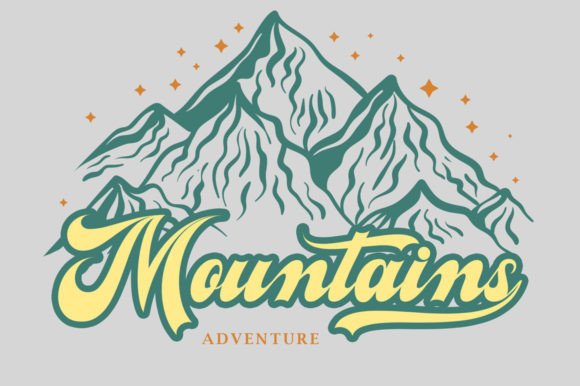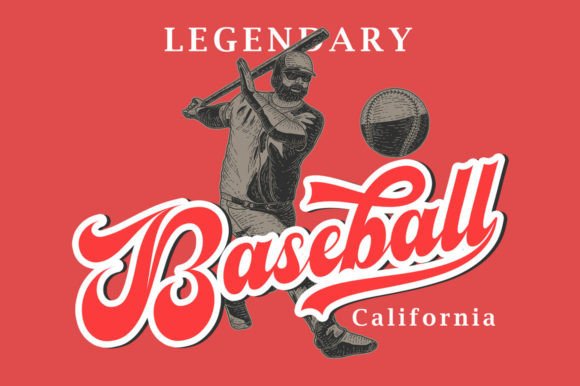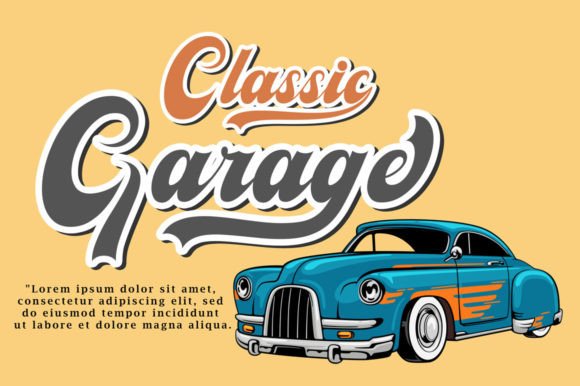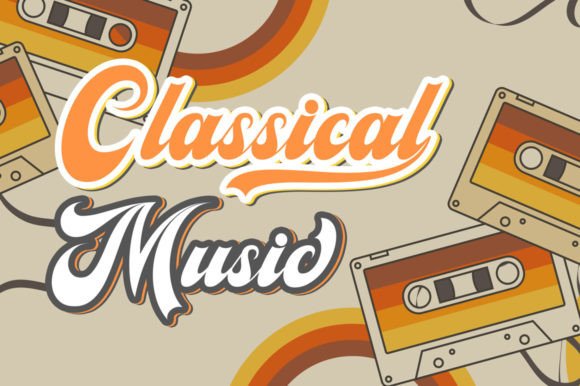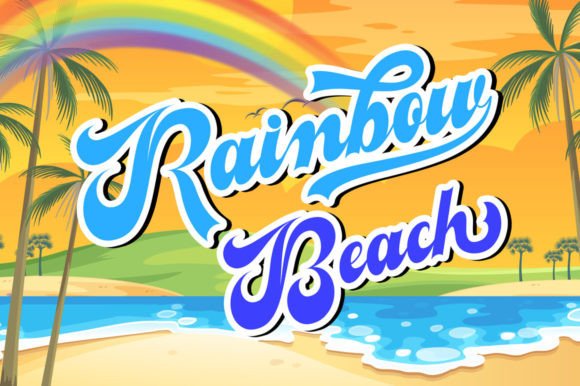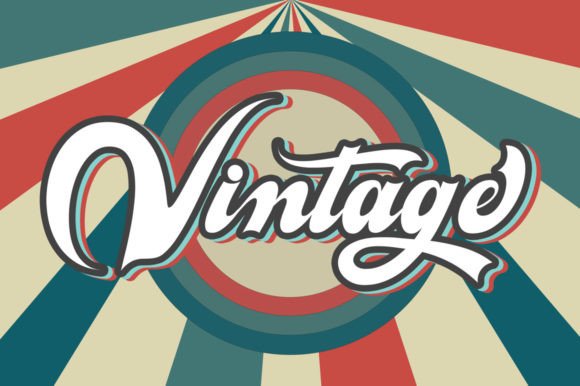
Introduction to Martines Font Font
Fonts play a crucial role in design, and the Martines Font font is a typeface that brings both character and versatility to any project. Whether you’re working on a branding project, a website, or a print design, the Martines Font font offers a unique style that can elevate your work.
Martines is a fun vintage script font that brings a cool, 80s feel to your designs.
With funky curves and a retro feel, this font is perfect for creating fun and playful designs that evoke a sense of nostalgia and make your audience smile Keep in mind that the font is PUA encoded, meaning you can easily access all the fun glyphs and swashes.
Key Features of Martines Font Font
Why Choose Martines Font Font?
The Martines Font font is more than just a typeface – it’s a design tool that helps you communicate your message with style and clarity. Its unique character set and versatile design make it suitable for a wide range of applications, from elegant invitations to bold headlines.
With its carefully crafted letterforms and balanced proportions, the Martines Font font ensures readability and visual appeal across all mediums.
What makes Martines Font font special?
The Martines Font font stands out with its unique design, exceptional readability, and versatility across various design applications.